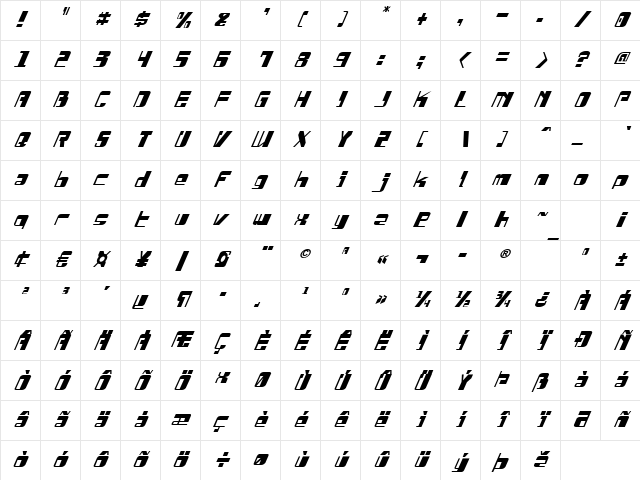
Drosselmeyer Italic Italic
Designer: Dan Zadorozny
Design Context for Drosselmeyer Italic
Drosselmeyer Italic is a composed and adaptable typeface that performs quietly and consistently across a wide range of design contexts. The slanted form adds forward momentum and visual energy.
Pro Tip: Use Drosselmeyer Italic for emphasis, pull quotes, and subheadings where its slanted energy can add rhythm to the layout.